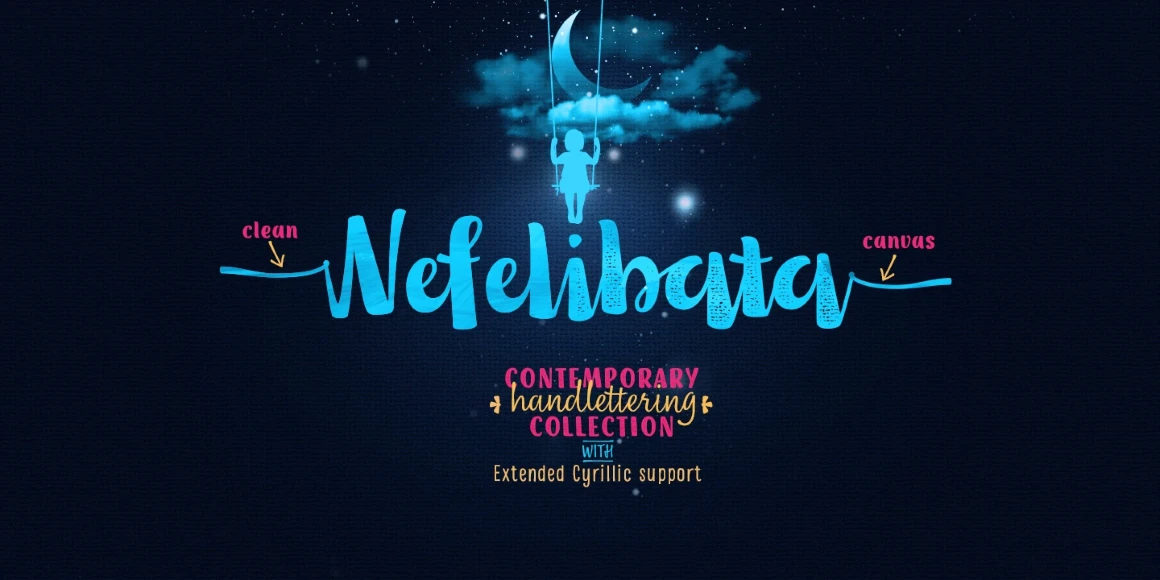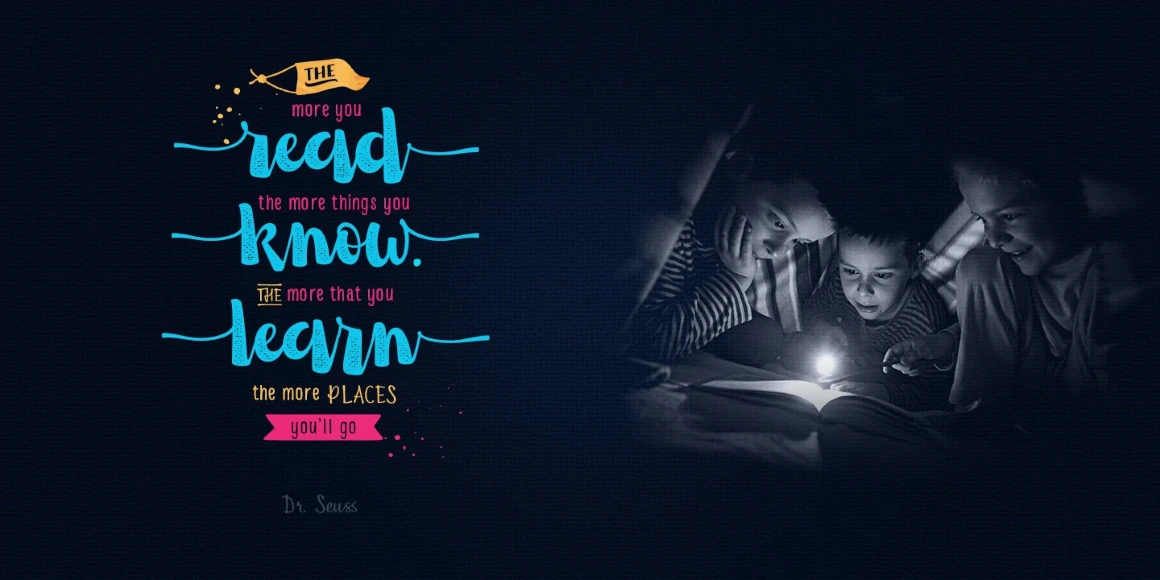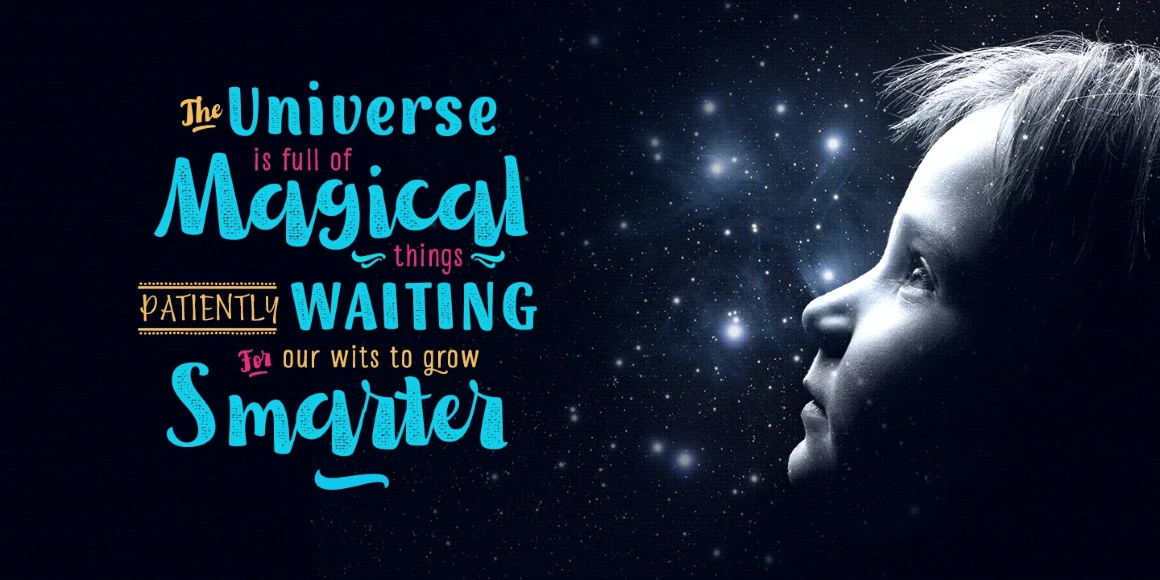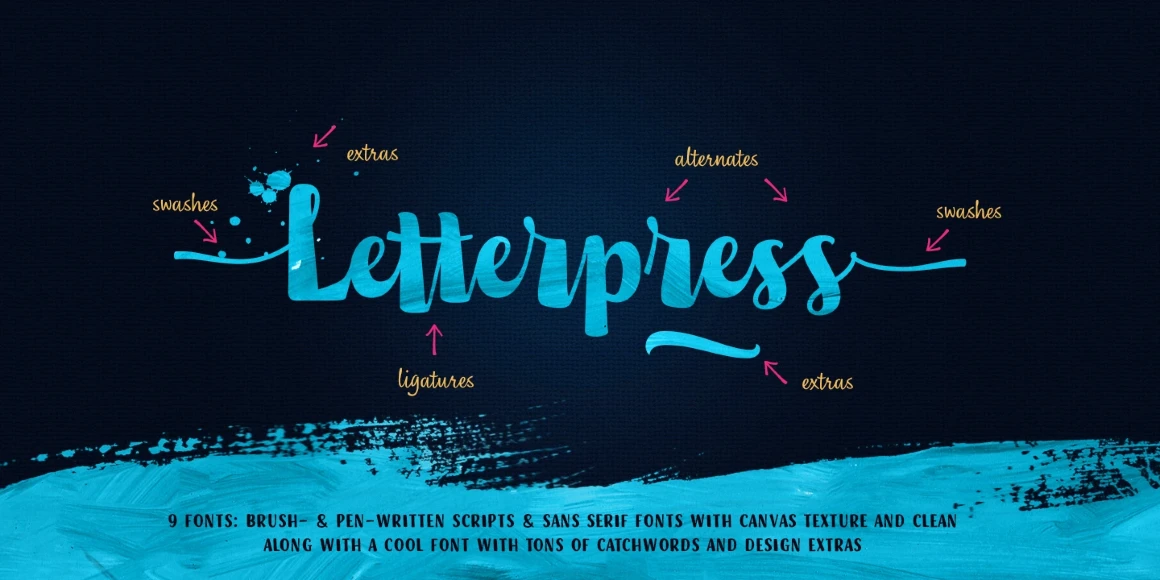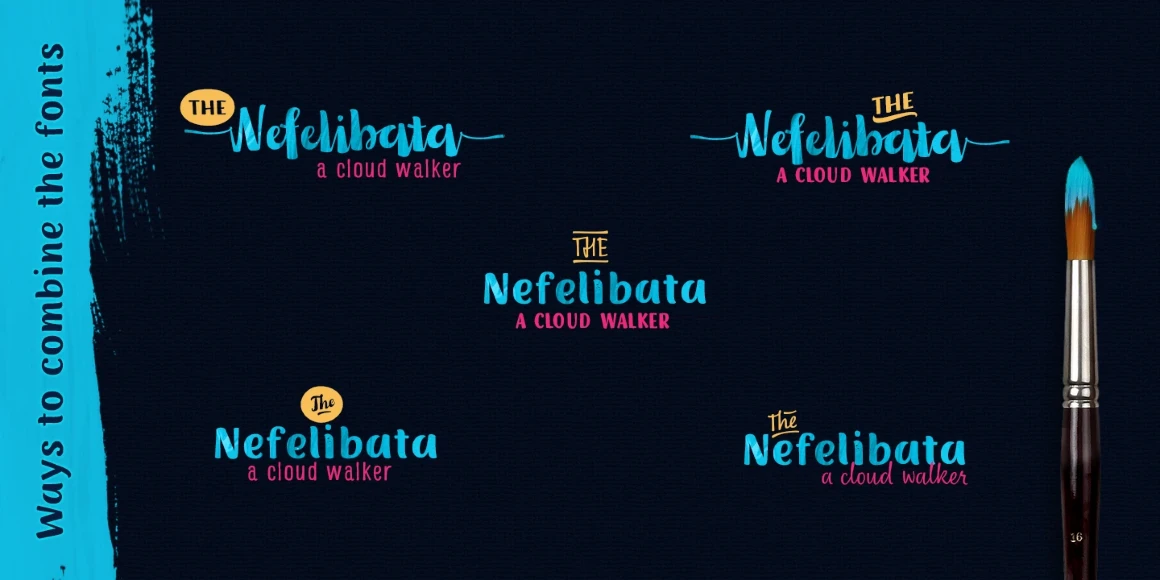
Nefelibata Script
By Elena Genova
Nefelibata Script Extras
Nefelibata Script Regular
Nefelibata Script is part of a striking collection of handwritten typefaces designed especially for dreamers. Nefelibata Script is casually semi-connected, making it well-suited for modern use — even in ALL CAPS! The catchwords, ink splats, and elements in Script Extras add bonus detail. The Nefelibata Collection has everything you might need for your contemporary design project, including Latin and Cyrillic. All nine fonts — plus design elements — can be mixed and matched to tell your story!